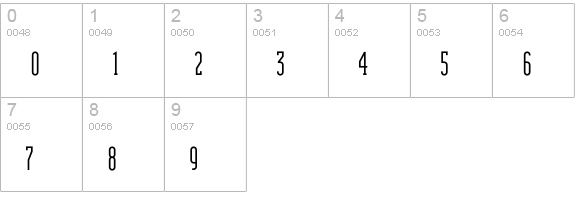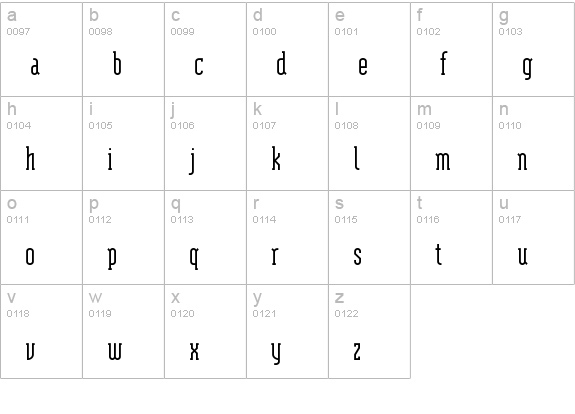
ModularSerif Font Details
ModularSerif is a versatile and elegant typeface that combines traditional serif elements with a modern, modular design. With its clean lines and distinctive serifs, this font is perfect for a wide range of design projects, from editorial layouts to branding and packaging. One of the best features of ModularSerif is that it is available for free download at FontsMarket.com. This means that you can easily access and use this stylish font in your creative work without any cost. Whether you're a professional designer looking for a new addition to your font library or a hobbyist seeking to enhance your projects, ModularSerif is a fantastic choice that won't break the bank. Don't miss the opportunity to add this unique and eye-catching font to your collection. Download ModularSerif for free today and elevate your designs with its timeless appeal and modern flair.